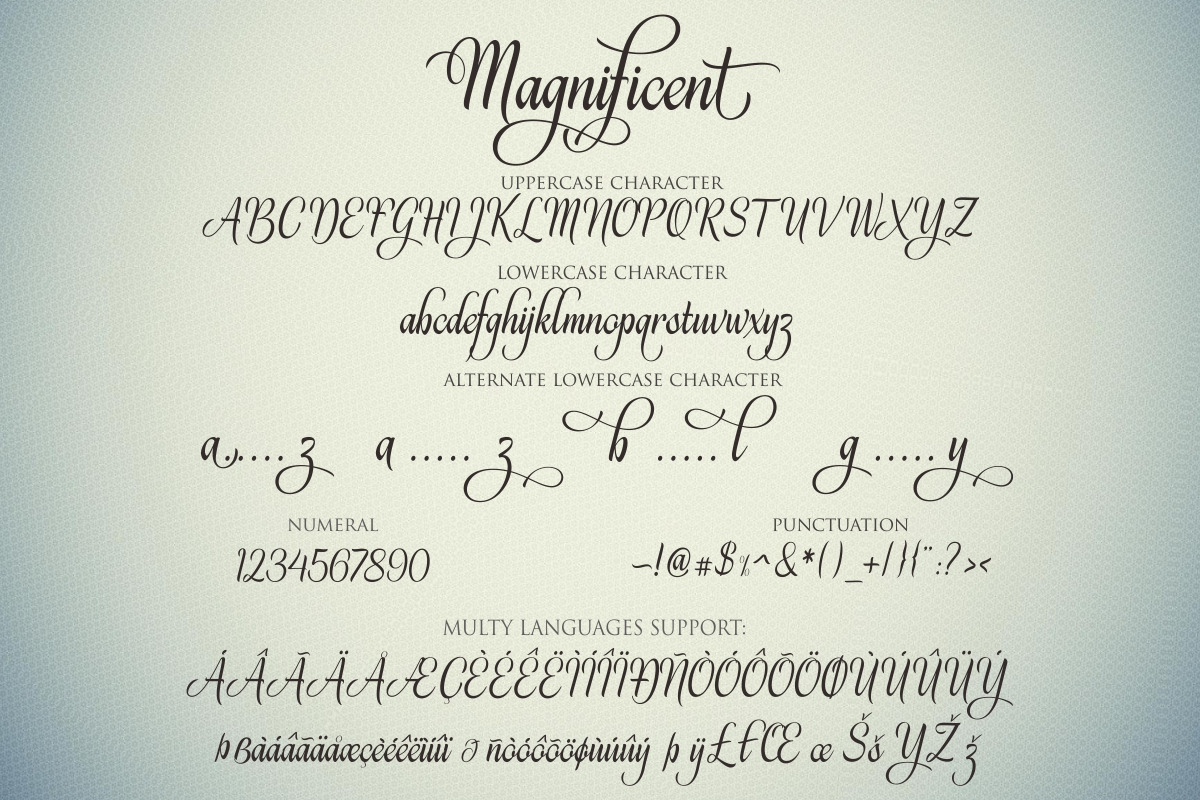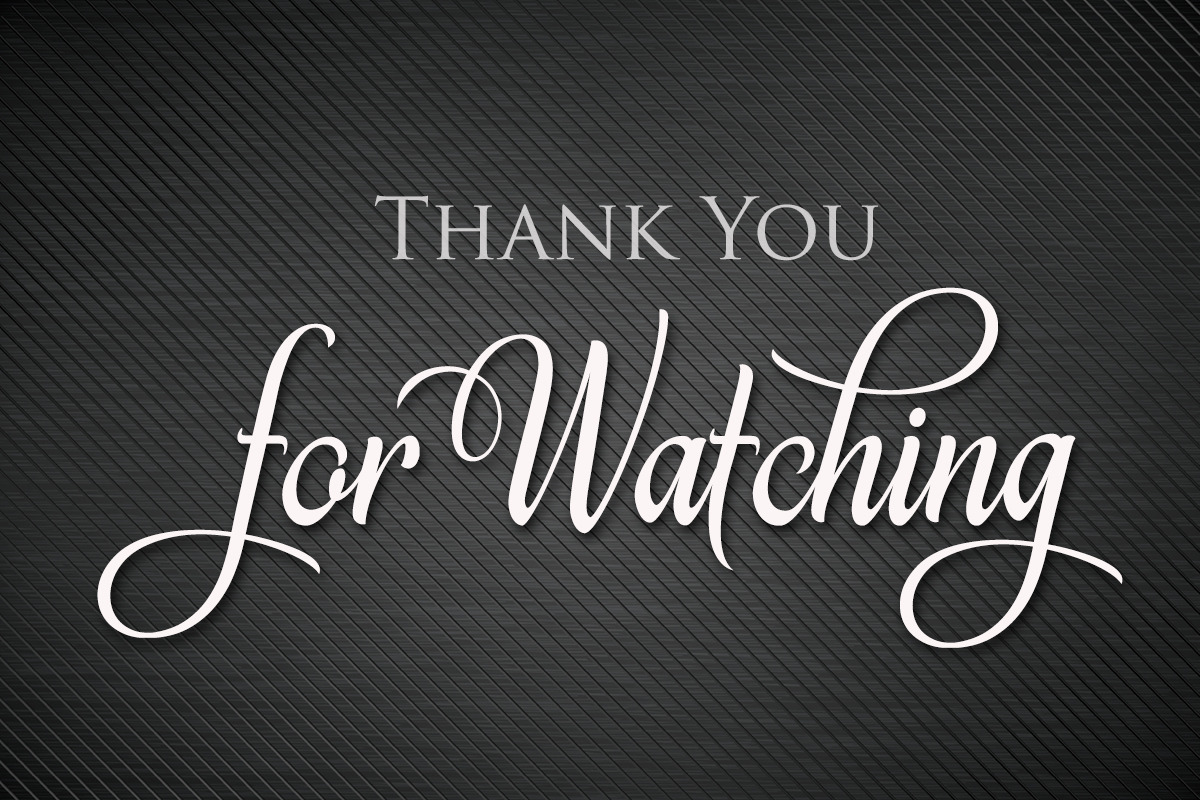
Magnificent
The Magnificent font is Elegant & Confidence
This font was created to help you designing brand of yours own or your client, and you also can use it for designing all of the graphic stuff such as badge, sign, packaging, headline, T-shirt/apparel, Poster, etc.
The Magnificent font was designed for personal characters such as strong, confidence, dynamic, readable, etc. This font is suitable to use as a logotype, apparel, wedding invitation, signboard, sport club, motor / car, etc.
The Features of this fonts is: Contextual Alternates, Standart ligatures, Stylistic Alternates, Stylistic Sets,